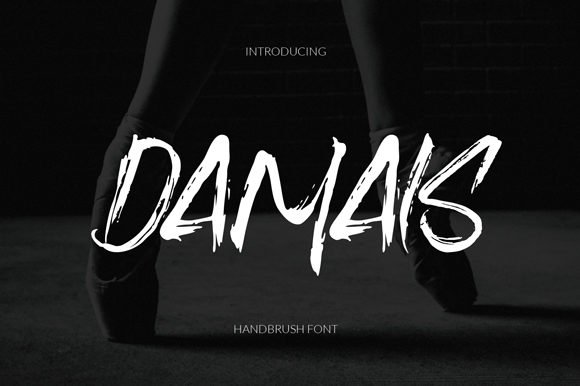
Introduction to Damais Font
Inspired by original handwriting, Damais is a bold and charming display font for a multitude of design projects.
Inspired by original handwriting, Damais is a bold and charming display font for a multitude of design projects!
Key Features of Damais Font